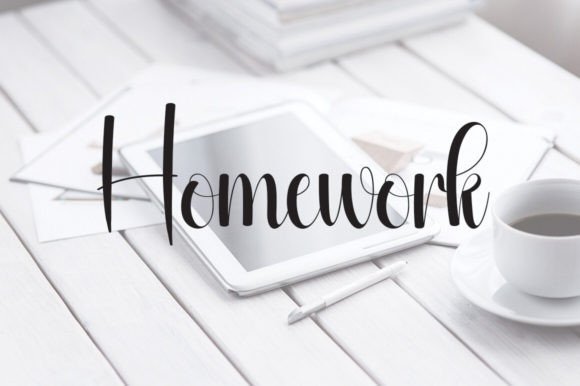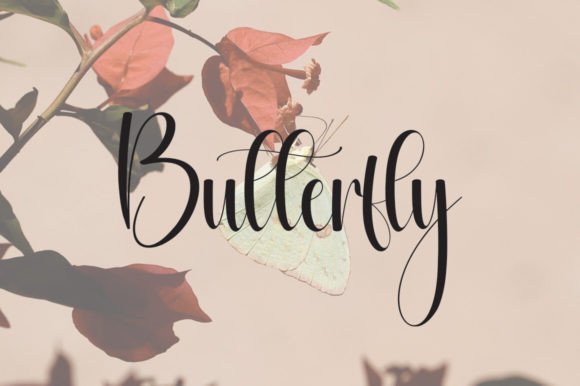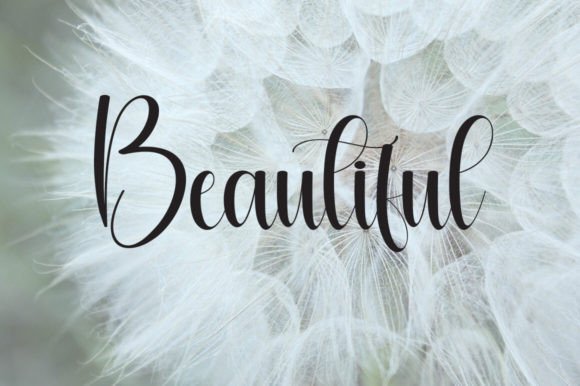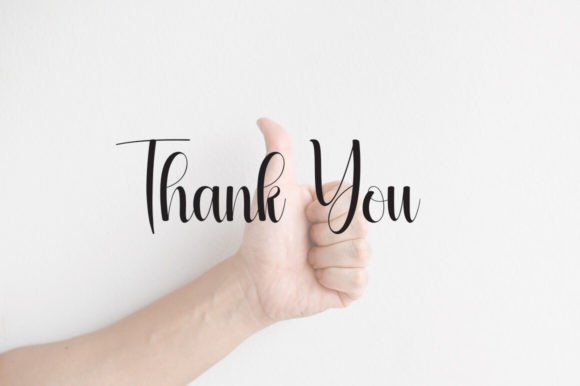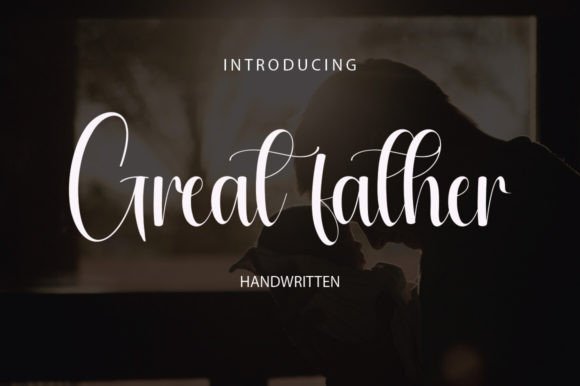
Introducing Great Father Font: Elevate Your Designs with Elegance and Joy
In the world of typography, a font can make all the difference in transforming a design from ordinary to extraordinary. For designers and crafters seeking to infuse their projects with a touch of elegance and romance, the ‘Great Father’ font is an enchanting solution. This beautiful, handwritten font boasts a sweeping cursive style that exudes a gentle grace, promising to enhance all your creative endeavors with its playful yet sophisticated charm.
The Essence of Great Father Font
‘Great Father’ is more than just a typeface; it’s an experience. Its sweeping cursive letters are designed to evoke a sense of joy and love, making it perfect for projects that require a personal touch. Whether you’re working on wedding invitations, romantic getaways, or simply want to add a dash of elegance to your blog or social media posts, ‘Great Father’ is the ideal choice. Its versatility knows no bounds, allowing you to experiment with various design ideas and bring your imagination to life.
Key Features of Great Father Font
- Handwritten with Love: Each letter in ‘Great Father’ is carefully crafted by hand, giving it a unique and personal feel that sets it apart from generic fonts.
- Sweeping Cursive Style: The font’s elegant cursive style flows effortlessly across the page, adding a touch of sophistication to any design.
- Playful Elegance: ‘Great Father’ strikes the perfect balance between playfulness and elegance, making it suitable for a wide range of creative projects.
- Romantic Aura: The font’s charming and romantic aura makes it an excellent choice for projects that require a touch of love and warmth.
Applications of Great Father Font
The ‘Great Father’ font is incredibly versatile and can be used in various design projects, including:
- Wedding and Event Planning: Create stunning wedding invitations, save-the-date cards, and event posters that set the tone for a romantic and memorable occasion.
- Branding and Packaging: Add a touch of elegance to your brand’s identity with ‘Great Father’. It’s perfect for luxury brands, boutiques, and small businesses looking to stand out.
- Digital Content: Elevate your blog, social media posts, or website with the ‘Great Father’ font. Its playful elegance is sure to captivate your audience and leave a lasting impression.
- Crafting and DIY Projects: Whether you’re creating handmade cards, scrapbooking, or working on other DIY projects, ‘Great Father’ is an excellent choice for adding a personal touch.
Tips for Using Great Father Font
- Pair with Complementary Fonts: Combine ‘Great Father’ with simpler fonts to create a striking contrast and add visual interest to your design.
- Experiment with Colors: The font’s elegance shines through in various colors. Try pairing it with soft pastels, rich jewel tones, or metallic colors to create a unique look.
- Play with Size and Spacing: Don’t be afraid to experiment with different font sizes and spacing to create a visually appealing design that captures the essence of ‘Great Father’.
‘Great Father’ is a beautiful, enchanting font that promises to elevate your designs with its elegant cursive style and playful charm. Whether you’re a designer, crafter, or simply someone looking to add a touch of romance to your projects, this font is an excellent choice. Explore the versatility of ‘Great Father’ and let it infuse your work with an unmistakable flourish of joy.